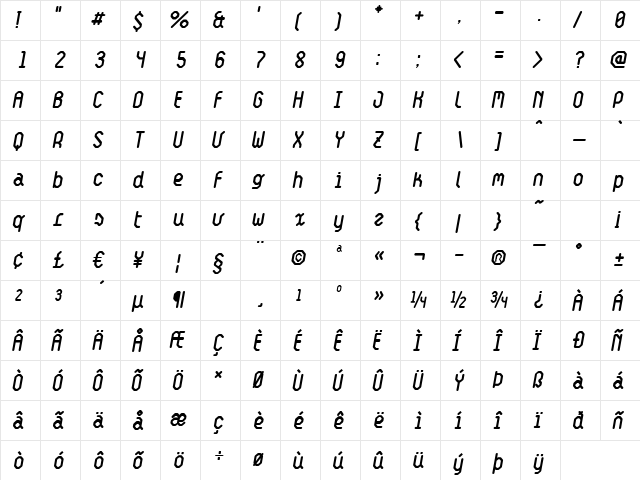
LAfacture NormalOblique
LAfacture is a composed and adaptable typeface that performs quietly and consistently across a wide range of design contexts. The slanted form adds forward momentum and visual energy.
Pro Tip: Try LAfacture for annotation and caption copy alongside an upright companion — the contrast in angle creates a dynamic but ordered typographic system.